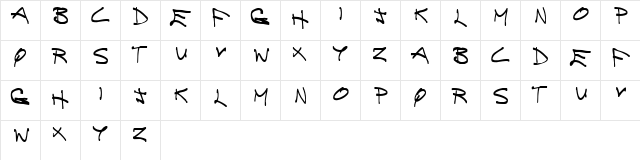
Brainless Thoughts Compact Brainless Thoughts Font Preview
Brainless Thoughts Compact Brainless Thoughts
Brainless Thoughts Compact Brainless Thoughts Font Details
Design Context for Brainless Thoughts Compact Typeface
Brainless Thoughts Compact is a composed and adaptable typeface that performs quietly and consistently across a wide range of design contexts. Its narrow stance lets it pack a punch even in space-constrained designs.